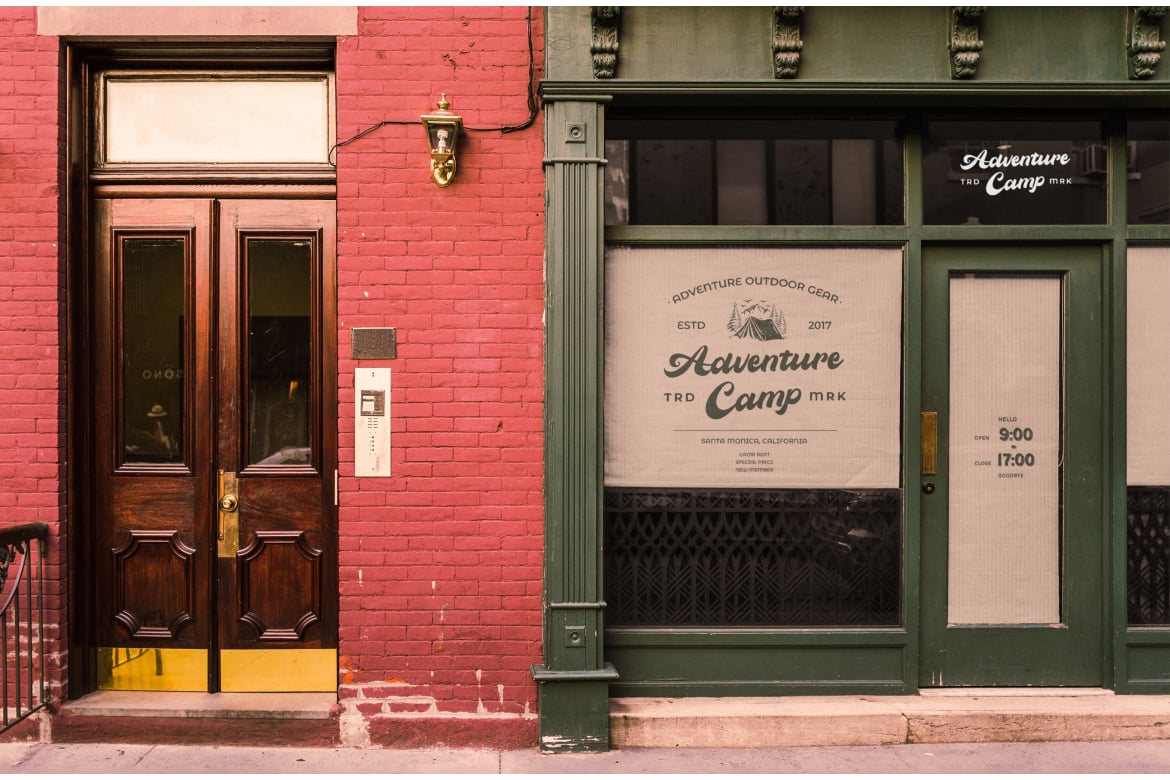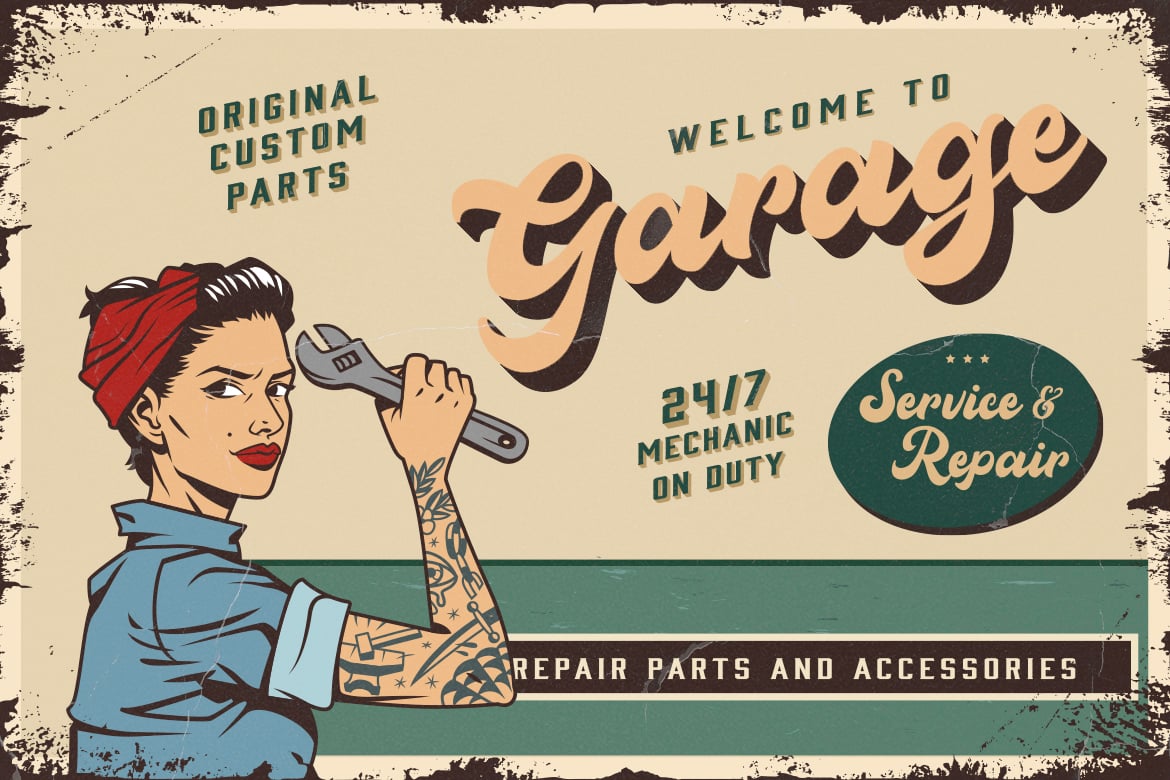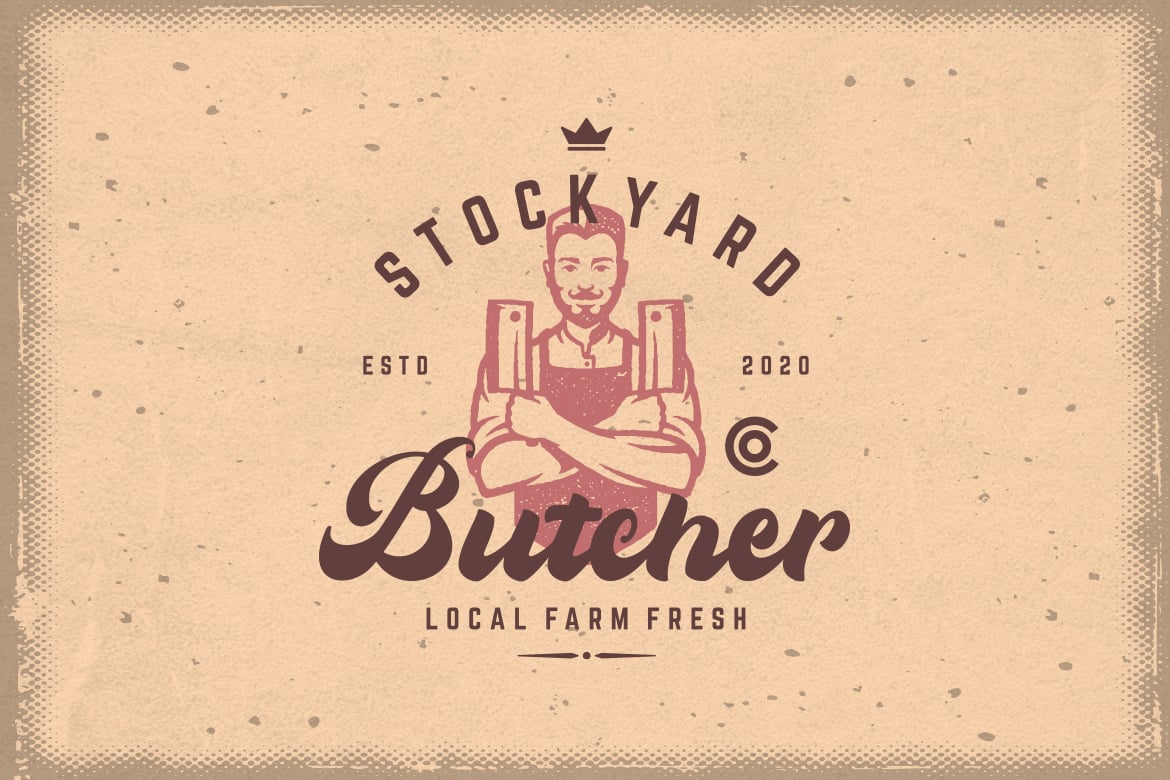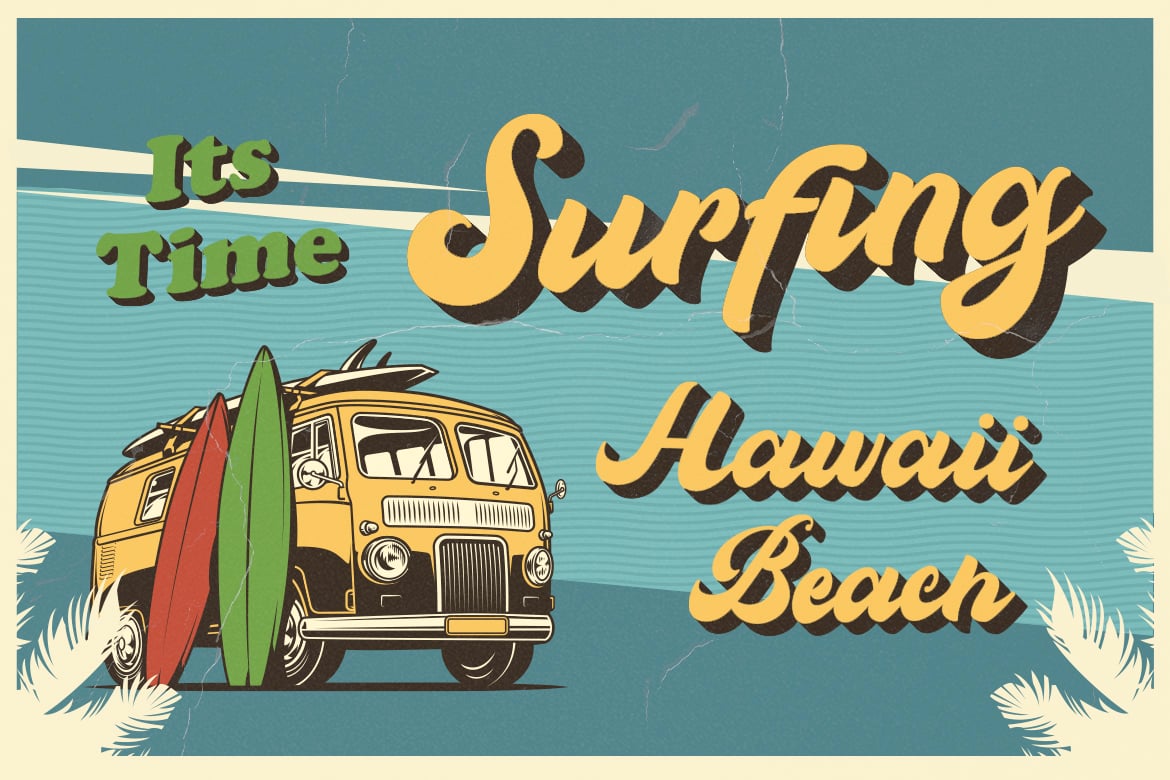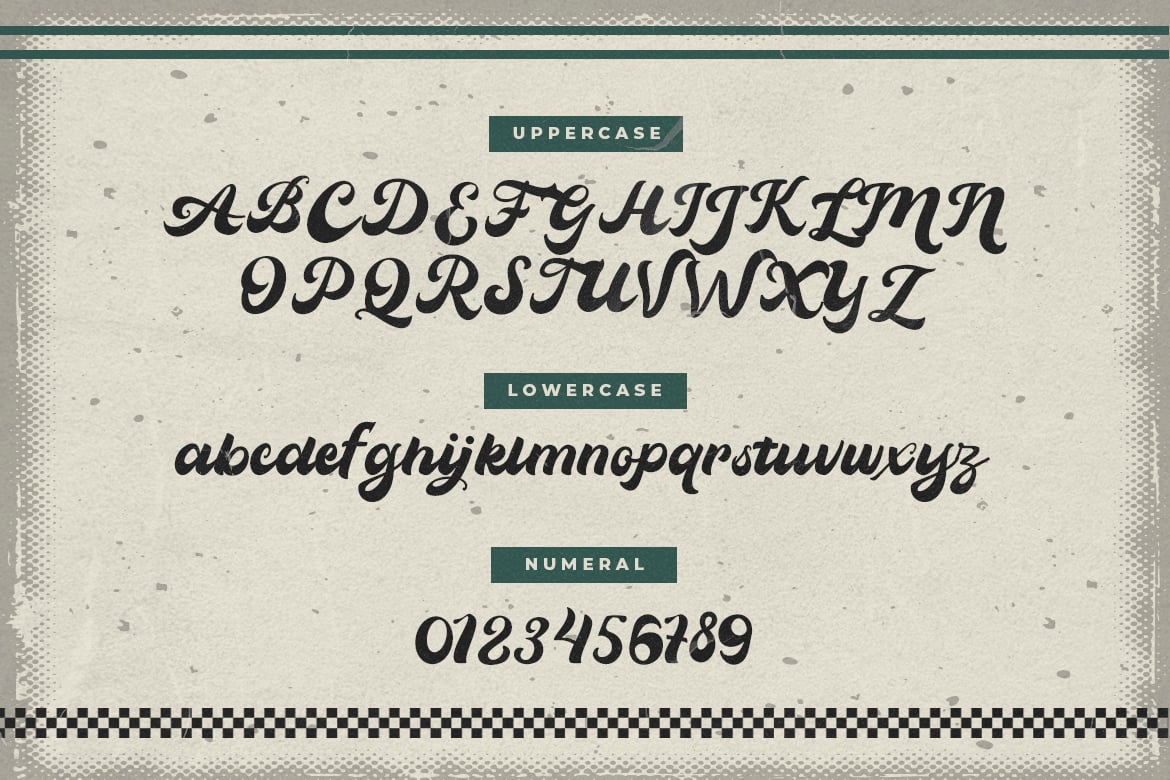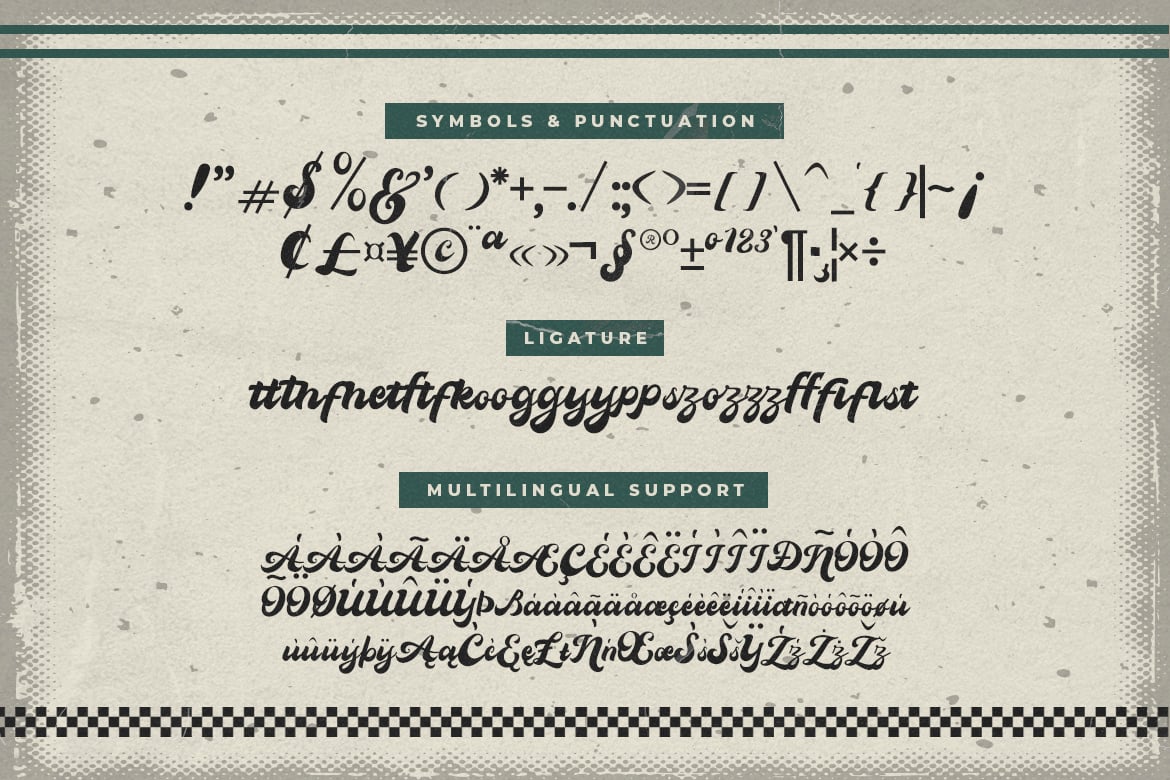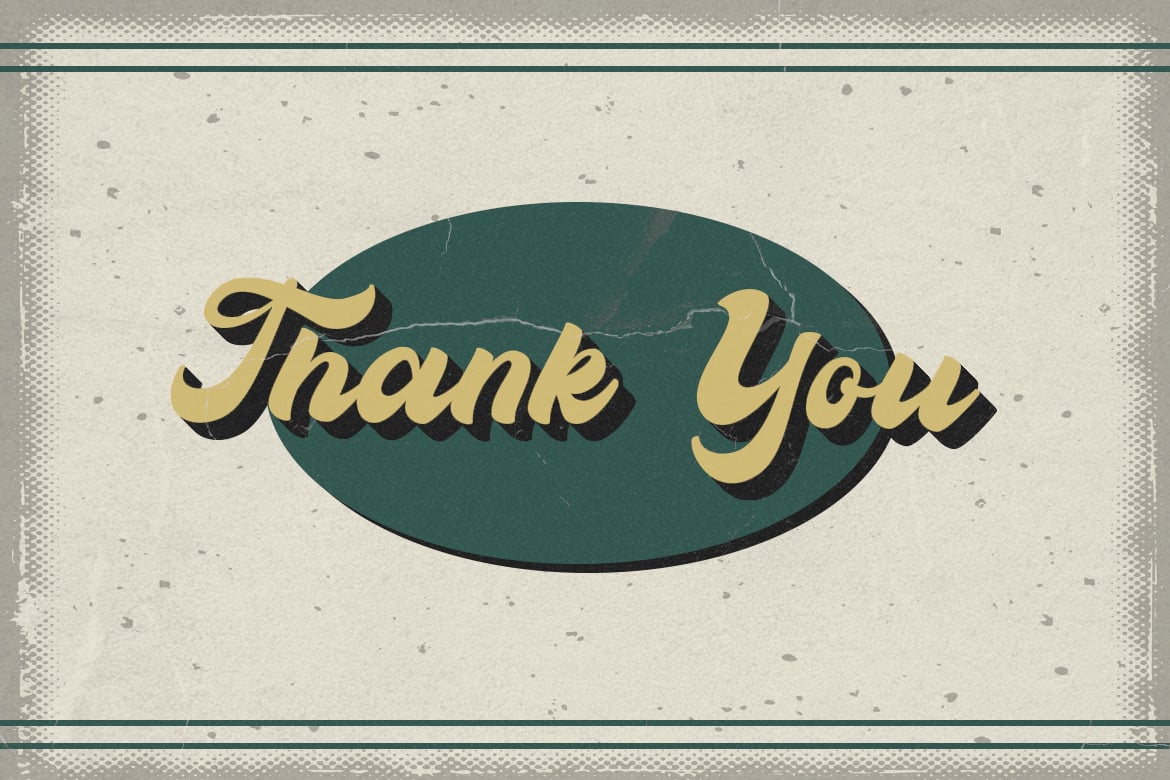
Vintage Wheel – Vintage Script Font
Vintage Wheel is a unique vintage script font. Fall in love with its incredibly versatile style and use it to create wedding invitations, retro stationary art, eye-catching social media posts, label, logos, web, quotes, posters, workshops, and much more!